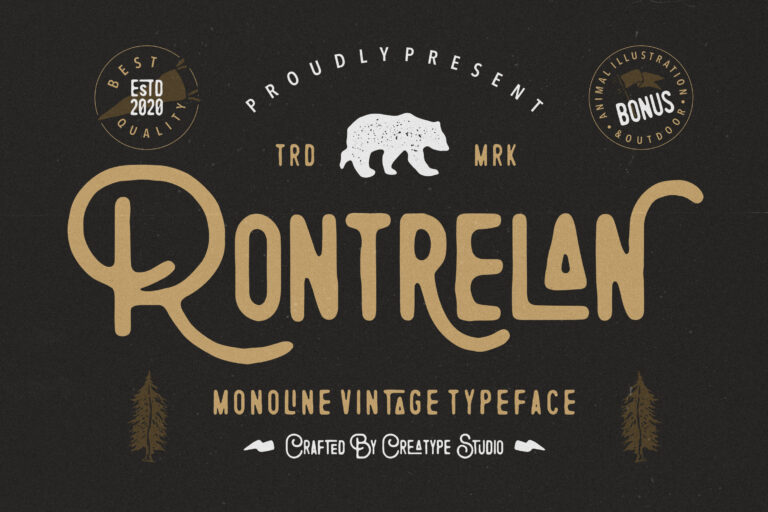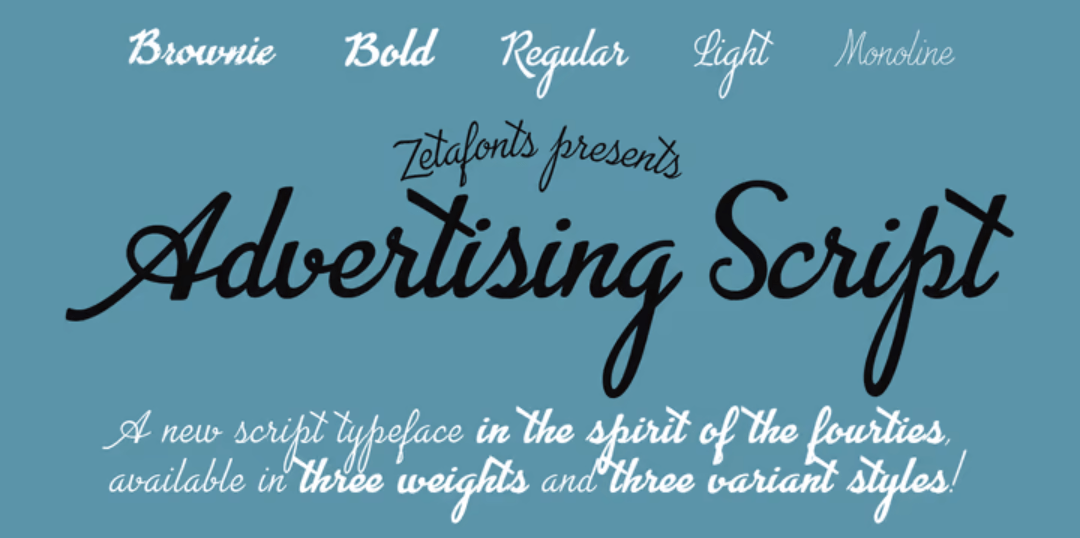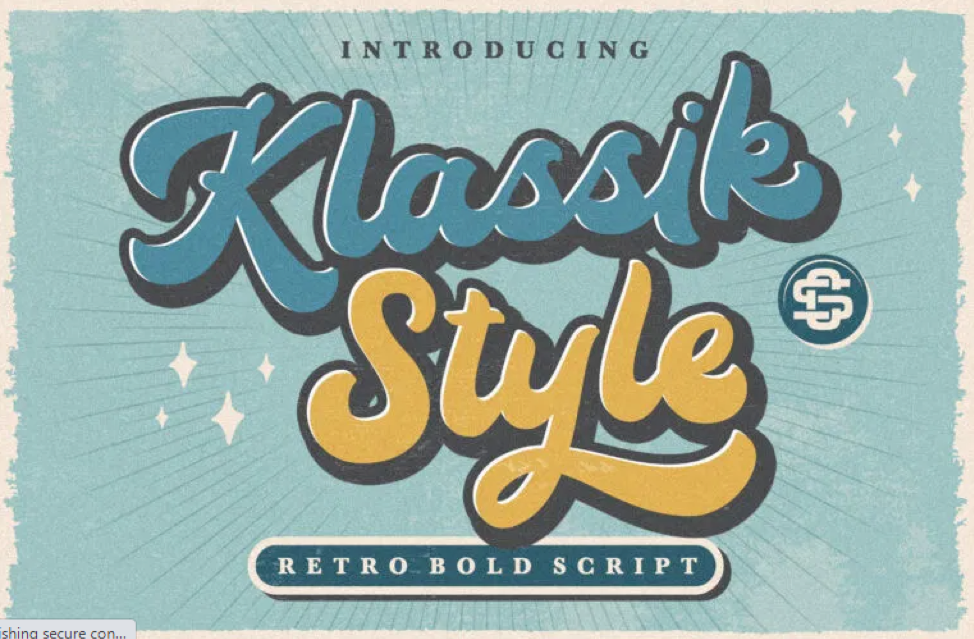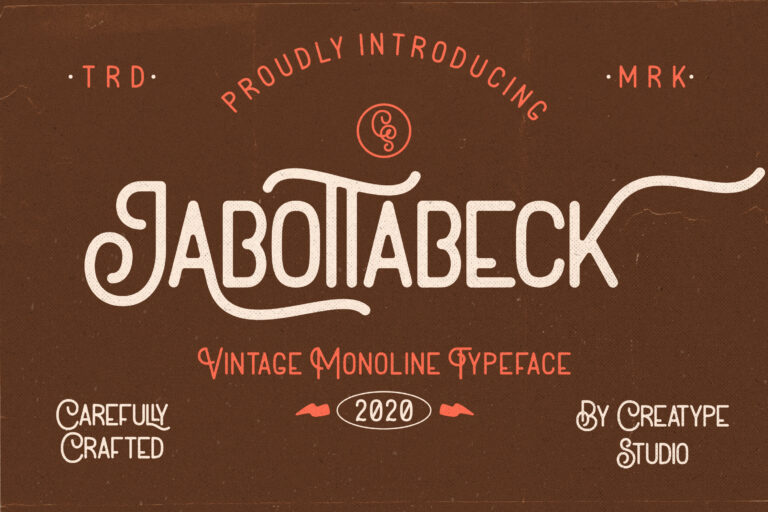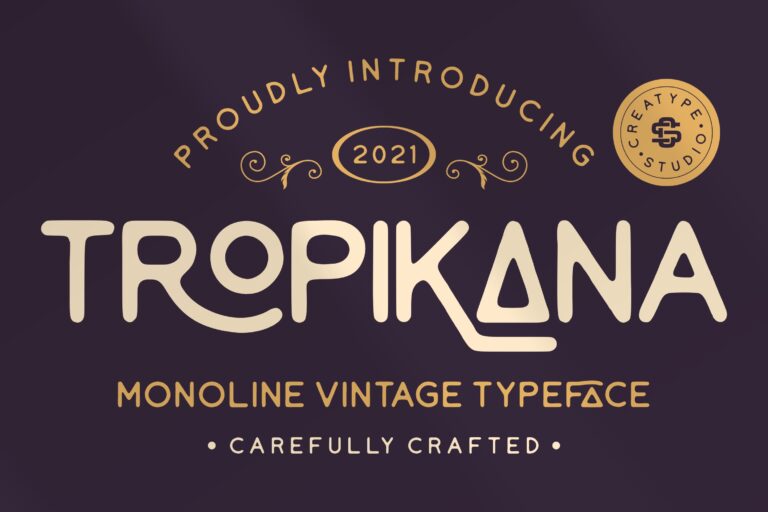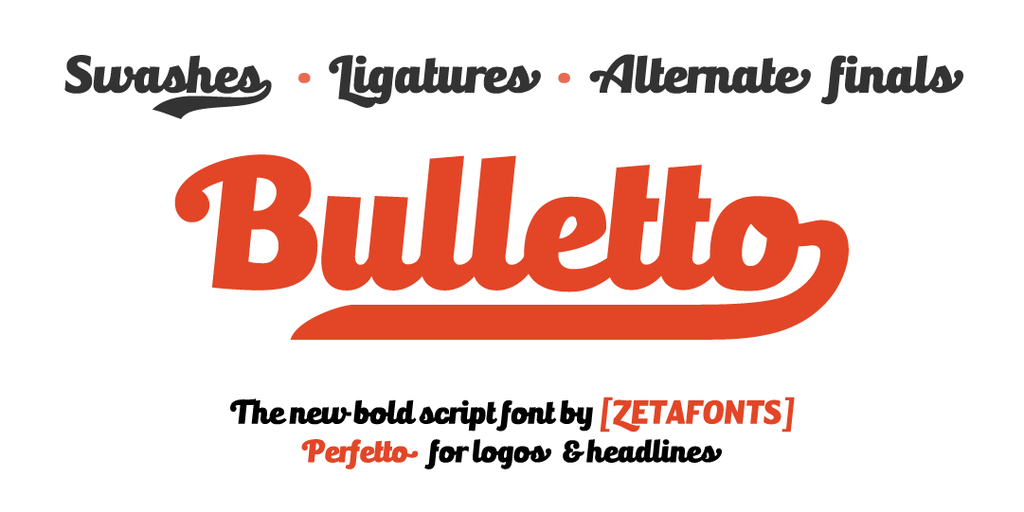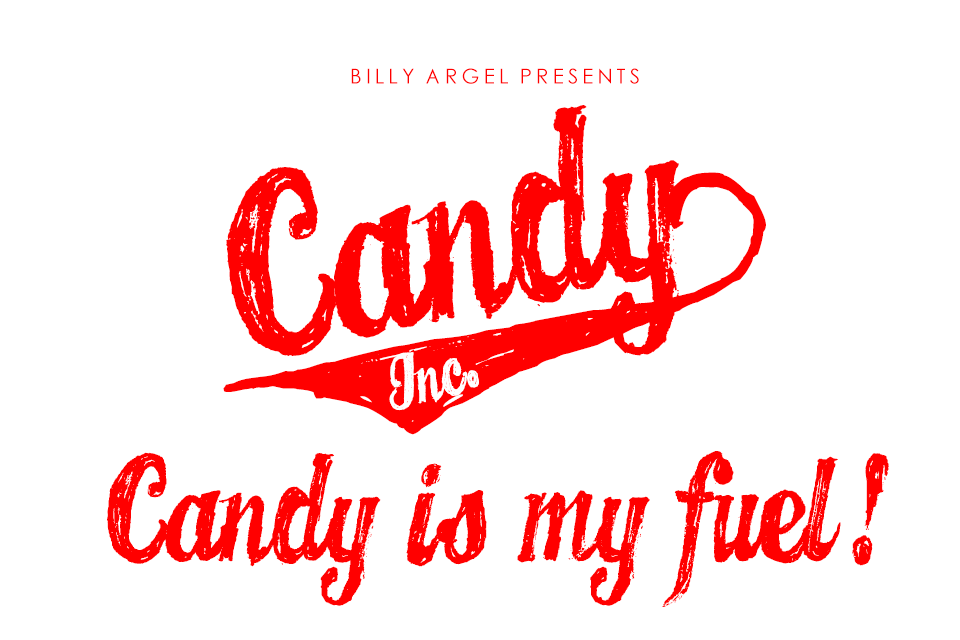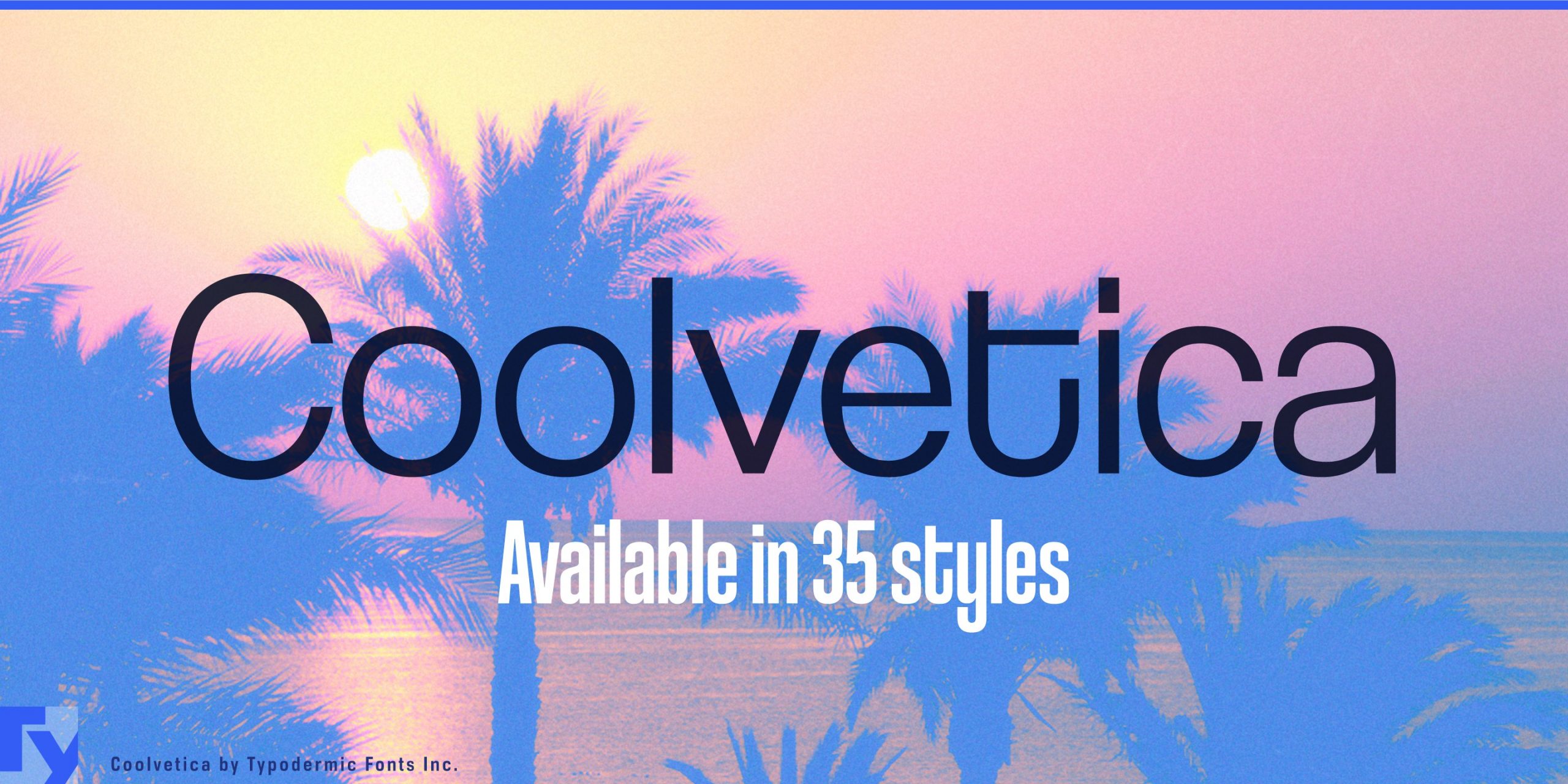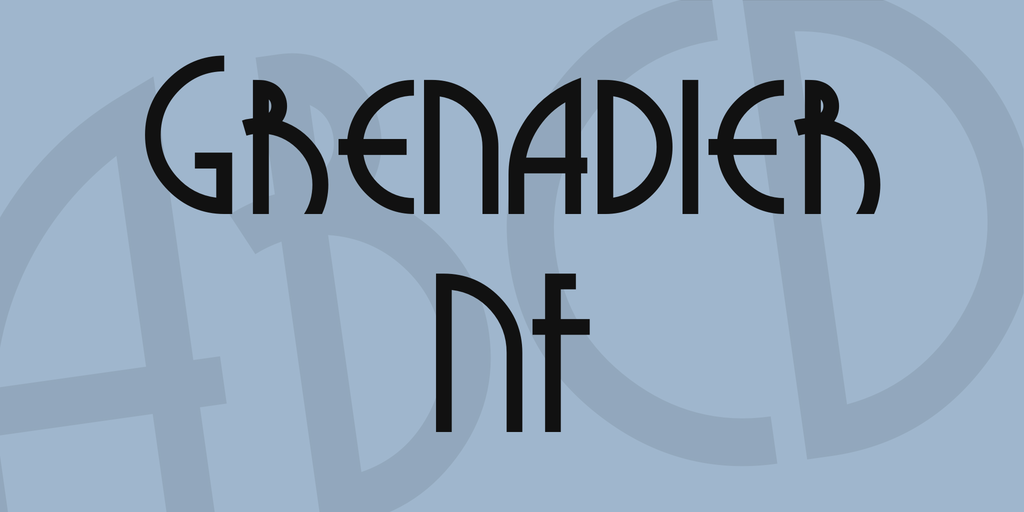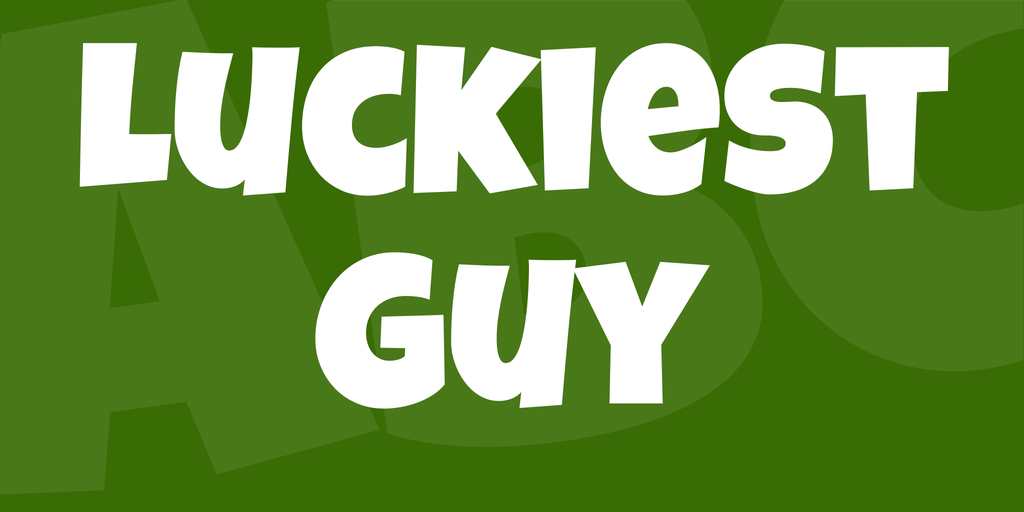
25 Cool Retro Fonts to Level Up Your Vintage Inspired Designs
There is no better way than employing a retro font to add a nostalgic, timeless feel to a vintage-inspired design. Some may say it’s a thing of the past. Still, its versatility and distinctive vibe make vintage design style remain a favorite among graphic designers.
With plenty of font choices, it could sometimes be a bit overwhelmed. Fortunately, we have a collection of retro-styled fonts which you can opt for to bring the best vintage touch out of your design project. Pick your best font from the following list.
1. Kalamaya Retro Funk
2. Quigley Wiggly
3. Vantage
4. Pangharsa
5. Candy Inc.
6. Vinttadge
7. Coolvetica
8. Quinlliyk
9. Klassik Style
10. Advertising Script
11. Tropikana
12. Streetwear
13. Jealousy
14. Gading Retro
15. Bulletto Killa
16. Antipathy
17. Underground
18. Jabbotabek
19. Rontrelan
20. Luckiest Guy
21. The Quest
22. Mr Dafoe
23. Whisholder
24. Rampage
25. Grenadier
Kalamaya Retro Funk
Let’s start the list with this retro-styled font that features a twist of contemporary. Kalamaya is created by a professional with years of experience in graphic design. This results in a font that is just fantastic to work with. Inspired by the mid-60s psychedelic movement, the font is versatile with tons of features to brush up on any of your projects.
Quigley Wiggly
Quigley Wiggly may sound a bit goofy, but its look is far from what its name indicates. Yet still, you will get a hefty dose of fun the font has to offer. It comes in bold style with some handwriting characteristics, perfect for a title font of any promotional endeavor you might be running.
Vantage
Here comes another expertly designed retro font strongly influenced by the psychedelic art movement that could be one of your go-to fonts. Vantage features a bold letter design with a quirky vintage typography style that will go along well with any of your creative works. The font also includes tons of alternates and ligatures to provide ease of use.
Pangharsa
If you love cursive handwriting, you can never go wrong with Pangharsa font. This monoline typeface is inspired by the aesthetic of orthodox western culture with a twist of retro, making it look as natural as ever. An excellent option for incorporating a vintage vibe into any of your design projects.
Candy Inc.
Introducing Candy Inc., a retro brush font designed in a calligraphic handwritten style. Its swash style can help you convey rough themes in any medium it’s employed on. You can include this in your font repertoire just in case your boss assigns you to create creative projects that require a solid touch of rustic. Also, it’s totally free for personal use.
Vinttadge
Vinttadge could be your type of font should you need one to add a vintage touch to your latest project. This bold script font is unlike the others, for it mixes the looks of vintage with retro-styled typography. Equipped with a complete set of ligatures, alternates, and glyphs, this retro font is one of the most versatile choices on the list. Download it, and you will find out how easy it is to mix and match the provided characters.
Coolvetica
Think about Helvetica font but with funky style; that’s precisely what this Coolvetica font is. This sans serif typeface is designed with the strong influence of American logo designs popular in the 70s. If you need a typeface for titles and headings, this bold and funky font can meet the demand. Of course, it’s not recommended to compose the book’s body text, for it will make your content appear crowded.
Quinlliyk
When it comes to design and style, the 60s and 70s are like the good ‘old days. Many of today’s design works are even inspired by the aesthetics of those eras. Quinllyik is one of the various bold fonts that gives off the look of retro style in the 60s to 70s. It has thick lines and curvy ends, making it even more special for all your vintage-inspired design works.
Klassik Style
What better way than employing Klassik font to make an innovative product have a classic vibe? This bold retro font falls under the script typeface category that is ideal for digital or print designs. A bunch of glyphs, alternates, and ligatures are contained within the font pack. Additionally, it works well in most-used design programs like Illustrator, InDesign, and Photoshop, as well as on Microsoft Word.
Advertising Script
As the name indicates, Advertising Script is a typeface designed in a script style. If you require a vintage font with a brush script look, this one could be your best option. The full version of this typeface covers a complete set of ligatures and alternates, making it versatile to use.
Grenadier
Let’s end this recommendation list with Grenadier. This vintage font will be a unique fit for any design project at your disposal. The font features straight lines, subtle curves, medium height, and various detailed elements. It’s a font that is worth a shot.
So, which retro font fits your design project requirements? While you won’t be running out of vintage font options, we greatly hope the list above assisted you in narrowing down the overwhelming typeface choices.